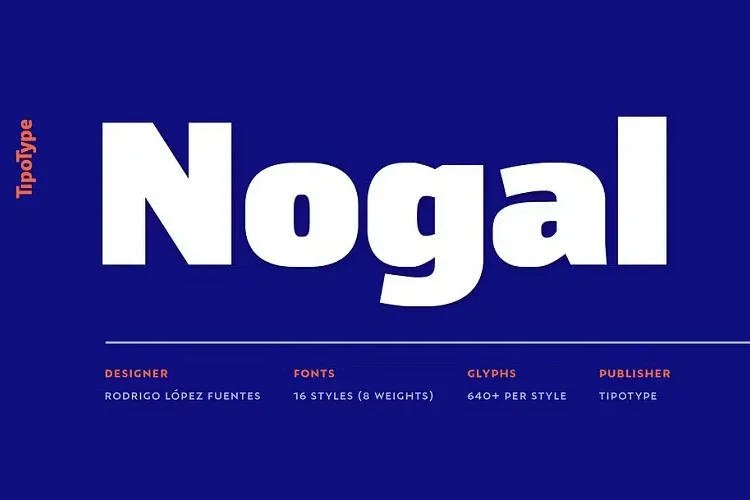
Nogal Font Family
Nogal is a contemporary geometric industrial sans serif font family, designed to offer versatility and modern appeal. The complete type system includes 16 styles: 8 upright and 8 italics, each featuring over 640 glyphs. This makes Nogal an incredibly useful font, perfect for a wide range of designs, including logos, editorial work, and digital screens.
Its minimalistic design, combined with high legibility and a non-biased look, allows Nogal to excel in various branding projects, as well as sign and navigation systems. The clean, modern aesthetic of Nogal makes it an ideal choice for designers seeking a dependable and contemporary typeface for their work.